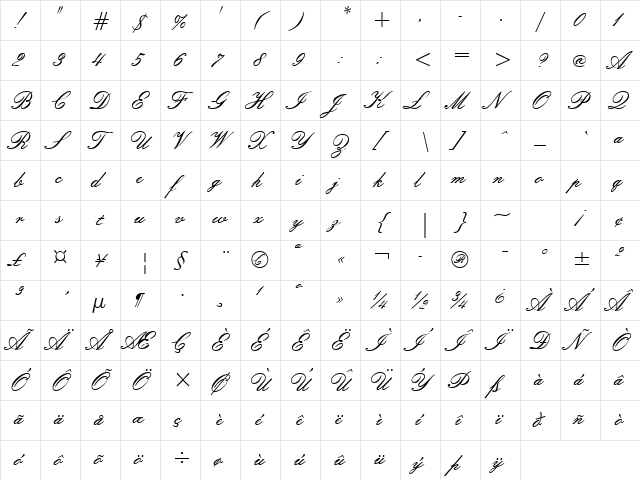
Empire Script Regular
Design Context for Empire Script Typeface
Empire Script flows with the natural rhythm of handwritten lettering, making it ideal for designs that call for warmth and personal expression.
Font Pairing: Combine Empire Script with a simple geometric sans for maximum contrast — the tension between flowing curves and clean structure is a classic typographic pairing.
Pro Tip: Pair Empire Script with a clean sans-serif for supporting text. The contrast between fluid script and geometric structure creates an elegant typographic hierarchy.